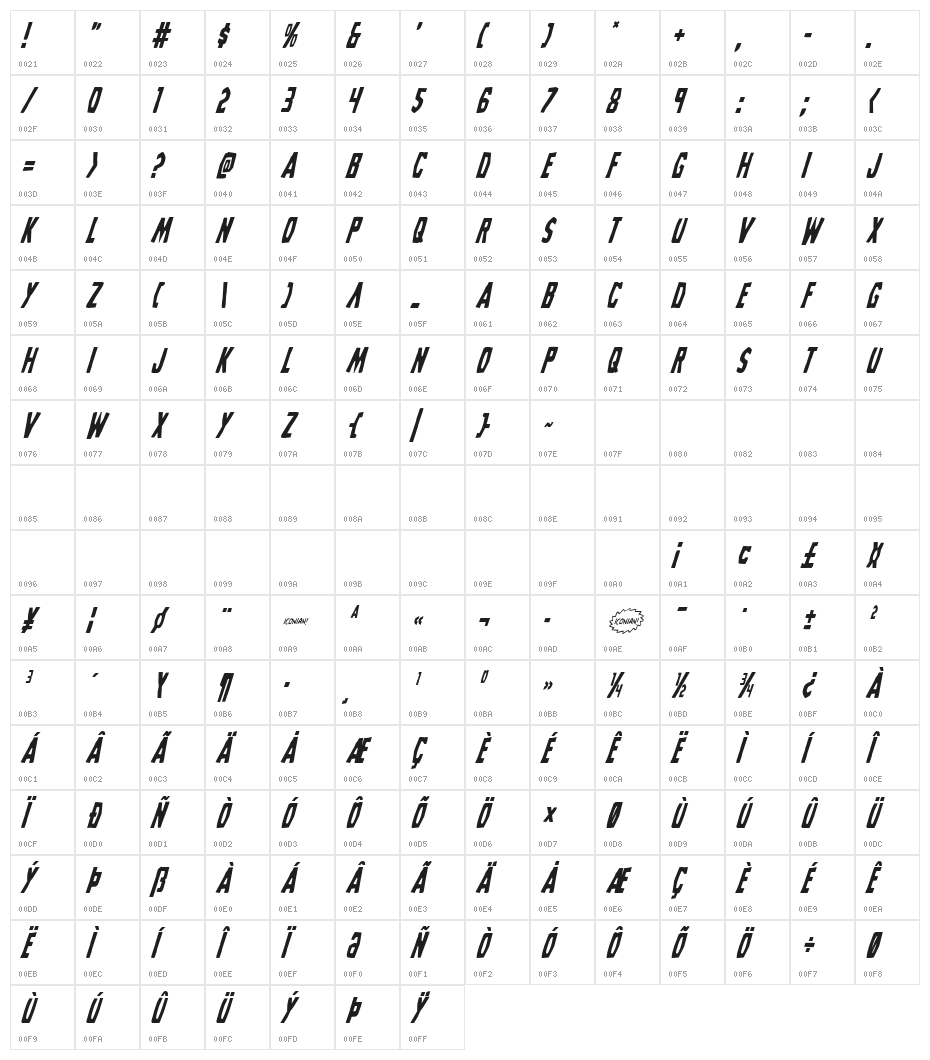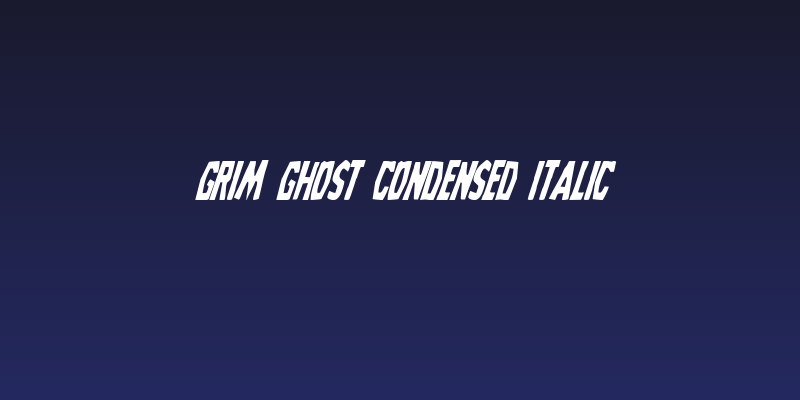
Grim Ghost Condensed Italic Font
Grim Ghost Condensed Italic Description
This font features a bold and dynamic style with a condensed and italicized form. The characters are sharply angled, giving a sense of motion and urgency. The strokes are thick and consistent, providing a strong visual impact. The uppercase and lowercase letters maintain a uniform style, with the numerals and special characters complementing the overall design. The font's aggressive slant and bold weight make it stand out, ideal for attention-grabbing headlines or impactful graphic design projects.